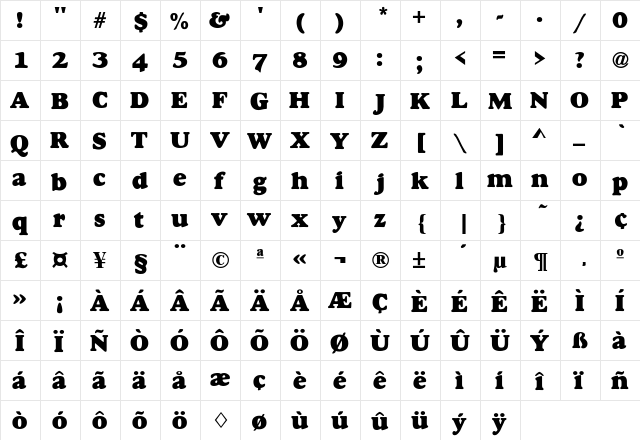
Alexuss Heavy Regular
Design Context for Alexuss Heavy Typeface
Alexuss Heavy offers clean, dependable letterforms without strong stylistic allegiance, making it a practical choice for designers who need flexibility.
Pro Tip: Use Alexuss Heavy in both headline and body roles to test its range before committing to a single application.